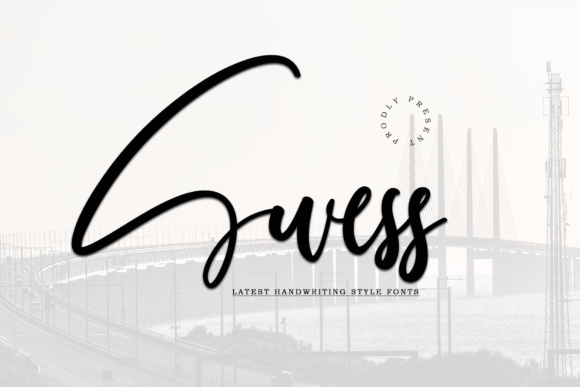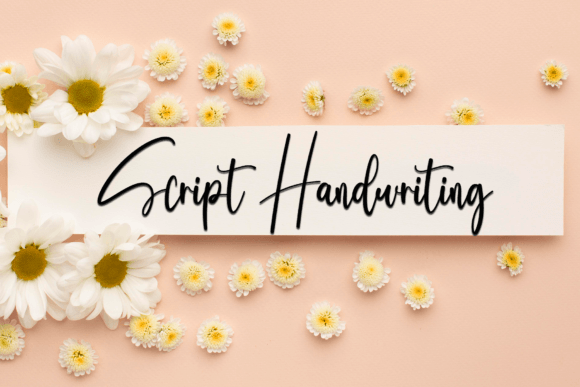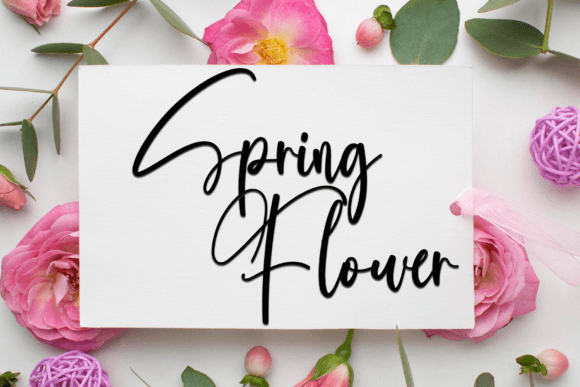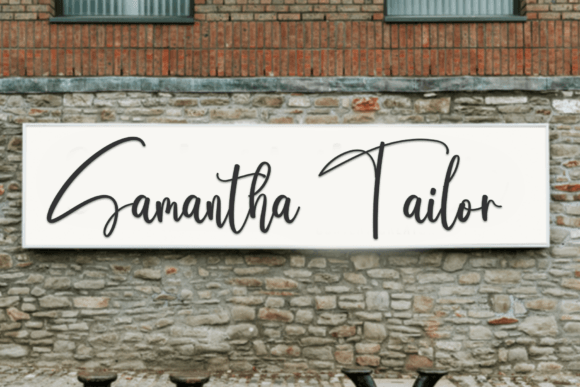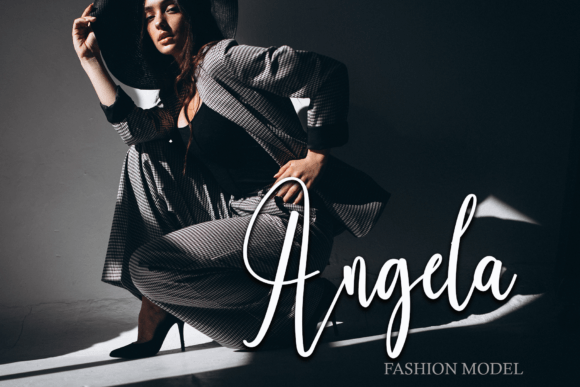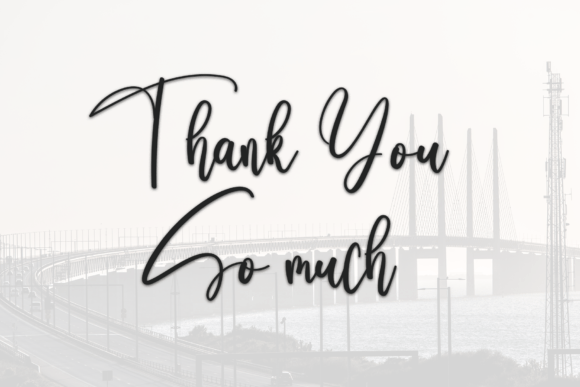
Swess Font
About Swess Font
Introducing “Swess” – a neat and beautiful handwritten font characterized by an elegant touch. Meticulously designed, this font is perfect for a variety of creative projects. Its distinct and timeless style adds a touch of sophistication, making it a versatile choice for design endeavors.
The elegance of “Swess” lends itself well to numerous applications. Imagine it on invitations, where its beauty enhances the personal and authentic feel of the event. Picture it on product packaging, adding a touch of elegance to the branding. Envision this font used in stationery, digital designs, or any other creative project, creating a distinct and memorable visual impression.
The versatility of “Swess” extends to its timeless style, making it suitable for both contemporary and classic design contexts. Whether you’re working on personal projects or commercial branding, this font invites you to fall in love with its distinct charm.
Let “Swess” be the key element that elevates your designs, creating spectacular and timeless aesthetics. Whether you’re designing for special occasions, branding, or any other creative project, this font is crafted to add an elegant touch to your favorite endeavors.